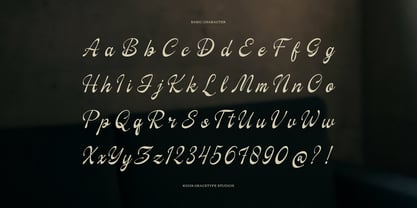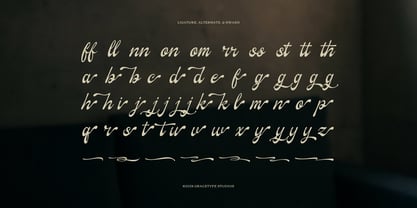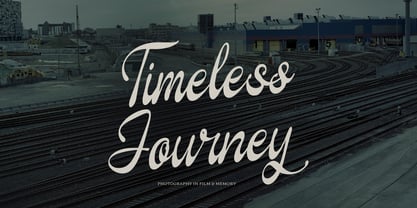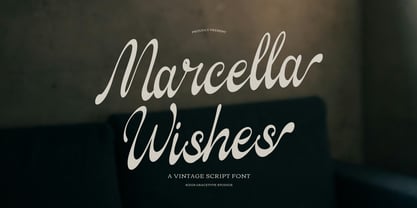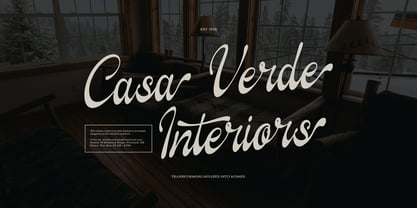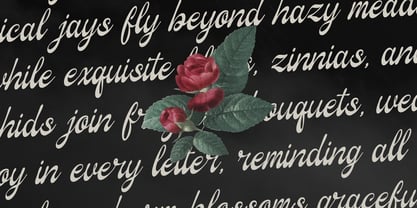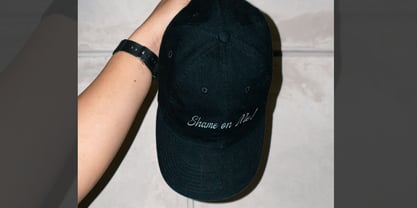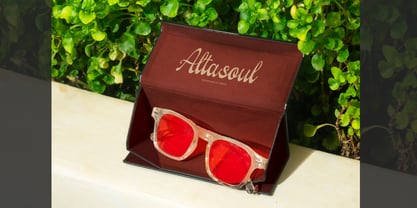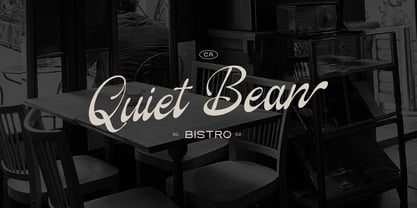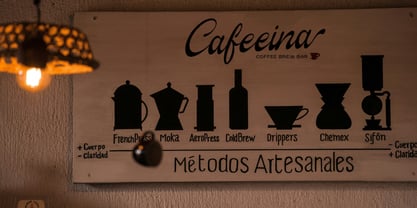
Marcella Wishes
by Tini Fitriani
The Marcella Wishes Font Family was designed by and published by Tini Fitriani. Marcella Wishes contains 1 styles. More about this family
Marcella Wishes | Vintage Script, from Gracetypestudio, suitable for any projects such as: logos, branding projects, homeware designs, product packaging, mugs, quotes, posters, shopping bags, t-shirts, book covers, name card, invitation cards, greeting cards, label, photography, watermark, special events, and all your other lovely projects that need a Vintage taste.